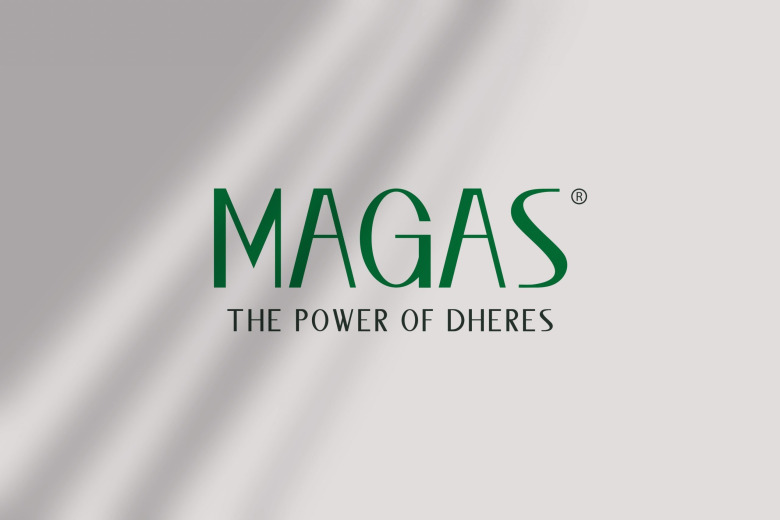
Magas Font
Magas is contemporary and stylish sans serif Typeface manufactured by evloxx studio. Inspired by trending design styles, They excel at beauty products. It will be suitable for almost any projects : logo branding, invitation, finance report, flyer.